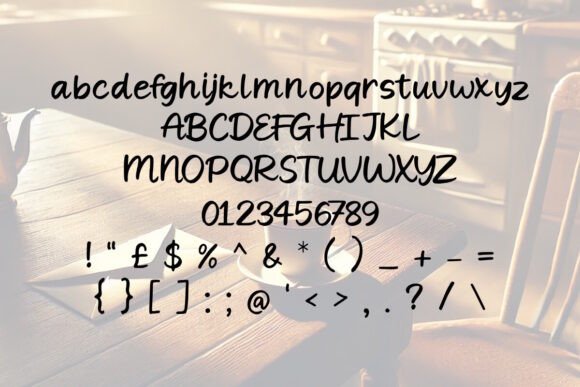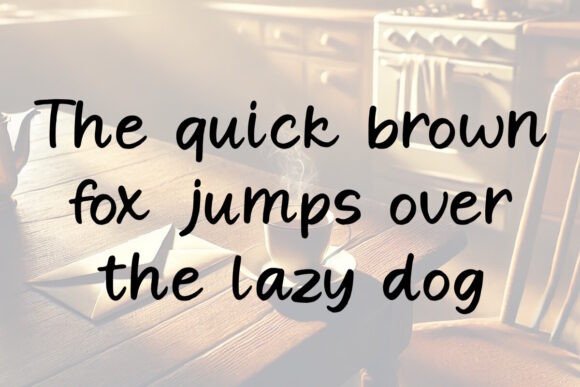
Introducing Dear John: A Handwritten Font that Speaks to the Heart
In the digital age, where communication is often reduced to fleeting messages and emojis, there’s something undeniably special about a handwritten letter. The imperfections, the flow, and the emotional warmth of handwritten words on paper have a way of touching our hearts in a manner that digital text simply can’t. For designers, crafters, and anyone looking to add a touch of heartfelt nostalgia to their projects, Dear John font is here to bridge that gap.
The Charm of Dear John Font
Dear John is more than just a font; it’s an experience. This handwritten font is meticulously designed to capture the bittersweet charm of a personal letter left behind. With its flowing, natural strokes, Dear John brings back memories of handwritten notes, diary entries, and messages filled with meaning. Whether you’re working on a design project, crafting a personal message, or simply looking to add a touch of warmth to your digital creations, Dear John is the perfect companion.
Characteristics of Dear John Font
- Flowing and Natural Strokes: Dear John boasts of fluid, natural strokes that mimic the authenticity of handwriting. Each letter and word flows into the next, creating a sense of continuity and harmony.
- Emotional Warmth: The font exudes a warmth that is hard to find in digital text. It’s as if each word was written with care and a personal touch, making it perfect for projects that require a human element.
- Versatility: Dear John is incredibly versatile. It can be used for a wide range of projects, from romantic greeting cards and personal letters to blog posts and digital art.
- Legibility: Despite its handwritten nature, Dear John remains highly legible, ensuring that your message is always clear and understandable.
Uses of Dear John Font
The possibilities with Dear John are endless. Here are a few ideas to get you started:
- Stationery and Invitations: Add a personal touch to your wedding invitations, thank you cards, and other stationery.
- Digital Art and Graphics: Use Dear John to add quotes, lyrics, or personal messages to your digital art, making it more relatable and heartfelt.
- Blogging and Content Creation: Stand out from the crowd by using Dear John for your blog posts, especially for topics that require a personal touch.
- DIY Projects and Crafts: Perfect for crafters, Dear John can be used for a variety of DIY projects, from handmade cards to personalized journals.
Why Choose Dear John Font?
In a world where digital communication often feels impersonal, Dear John font offers a refreshing alternative. It’s not just a font; it’s a way to convey emotion, to connect on a deeper level, and to add a touch of nostalgia to your designs. With Dear John, you can:
- Evoke Emotion: Use Dear John to evoke feelings of warmth, nostalgia, and love in your audience.
- Stand Out: In a sea of digital content, Dear John can help your project stand out by adding a unique, personal touch.
- Connect: Create a sense of connection with your audience by using a font that speaks to the heart.
Dear John font is a beautiful addition to any designer’s or crafter’s toolkit. Its flowing strokes, emotional warmth, and versatility make it the perfect choice for anyone looking to add a touch of heartfelt nostalgia to their projects. Whether you’re creating digital art, crafting personal messages, or simply looking for a way to make your content more relatable, Dear John is sure to inspire. So, why settle for ordinary when you can add a touch of heart to your designs with Dear John font?